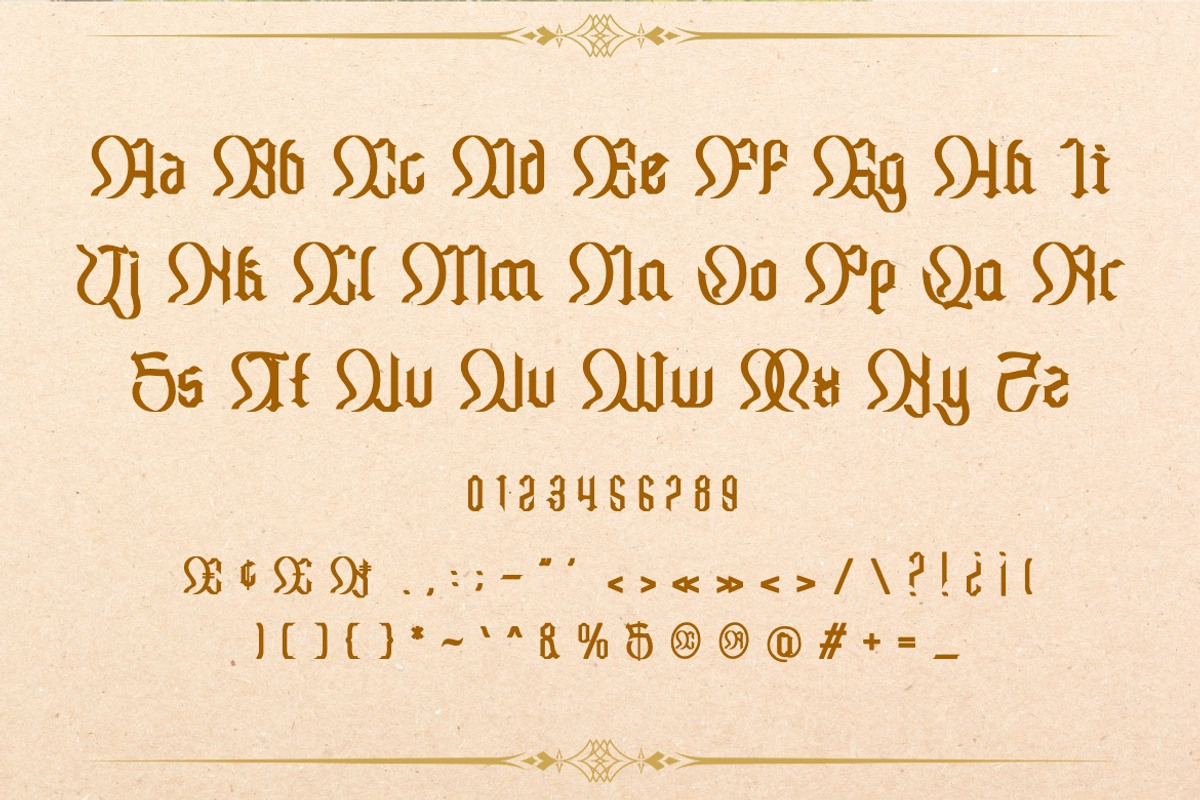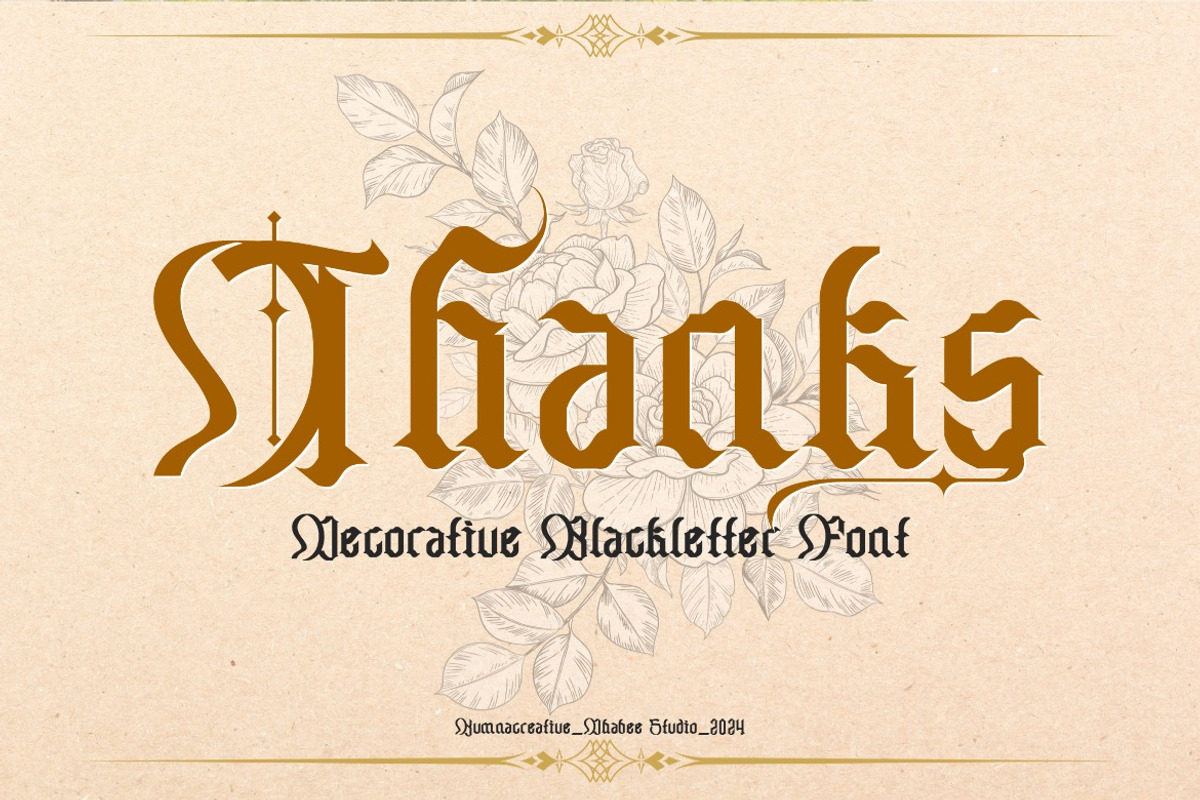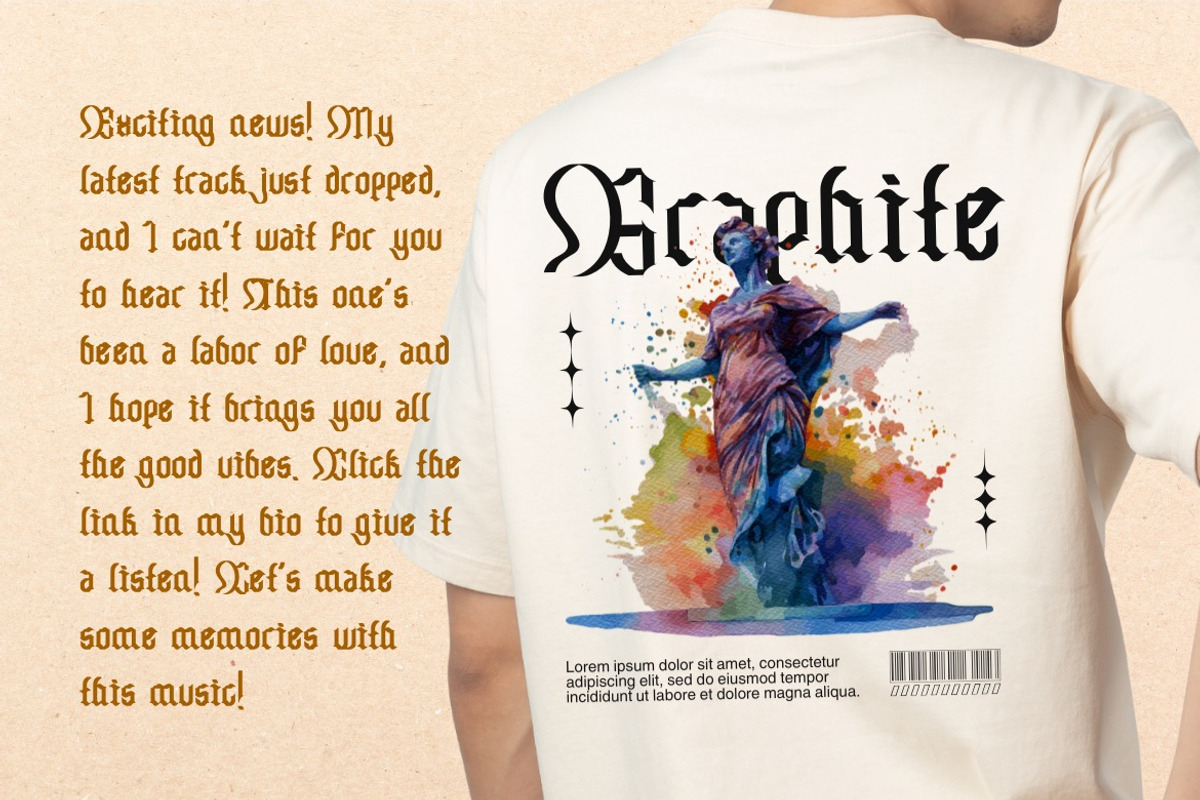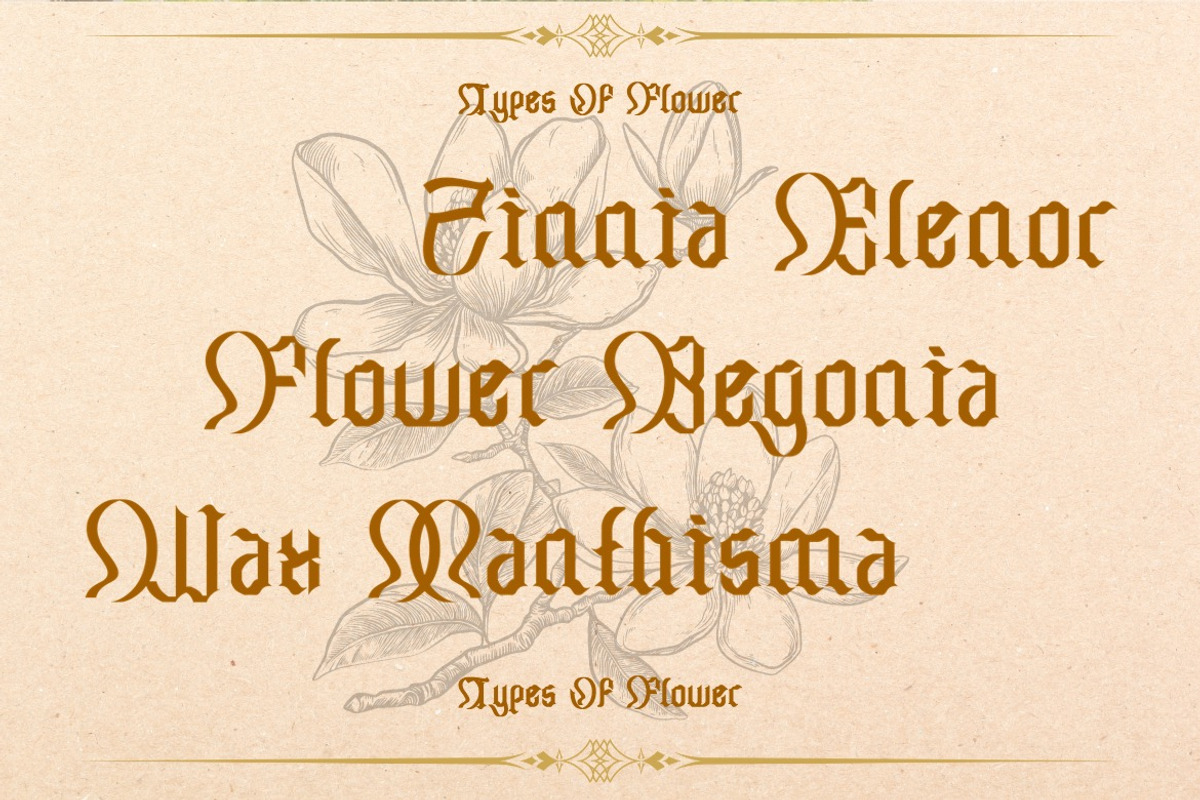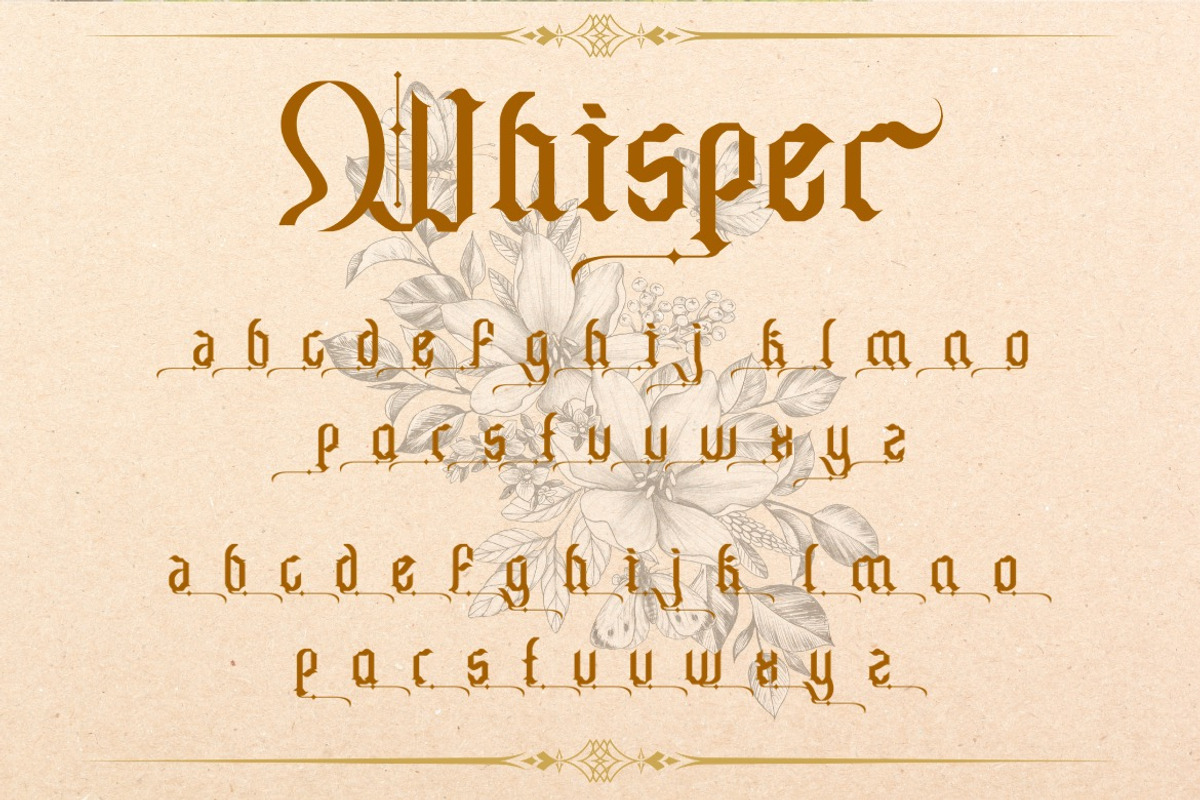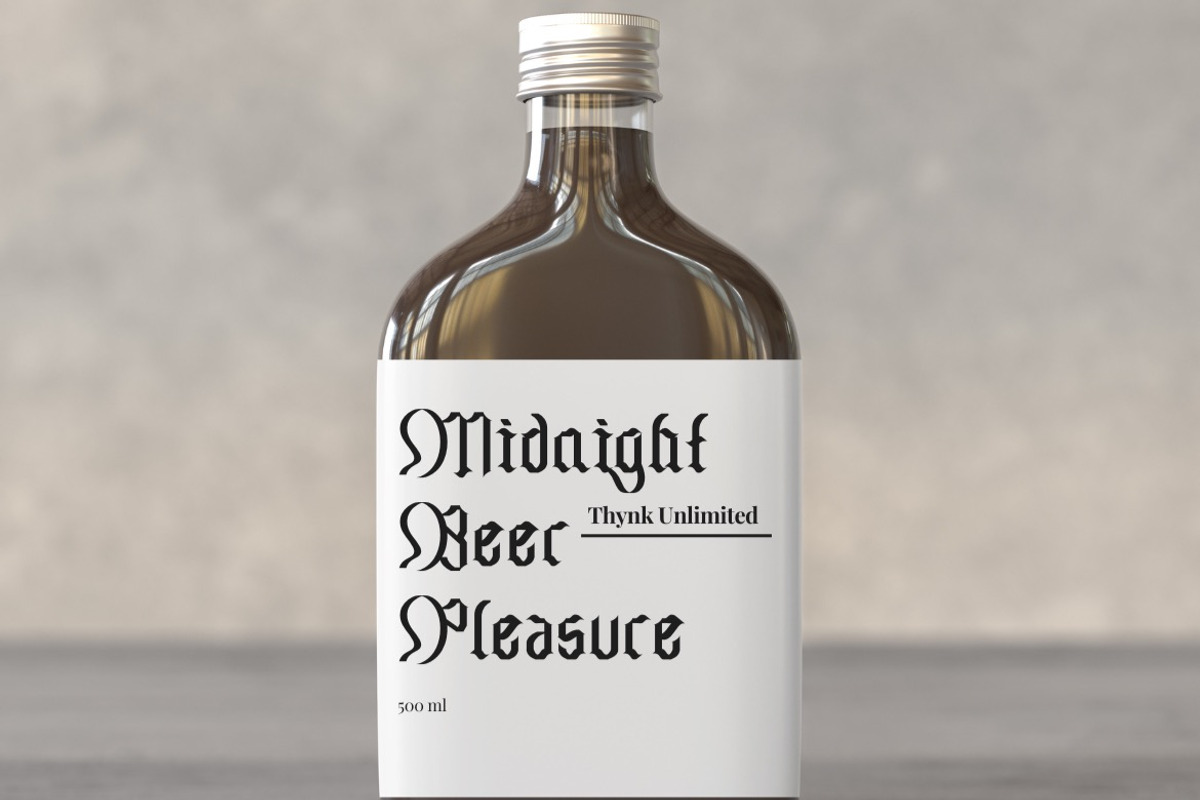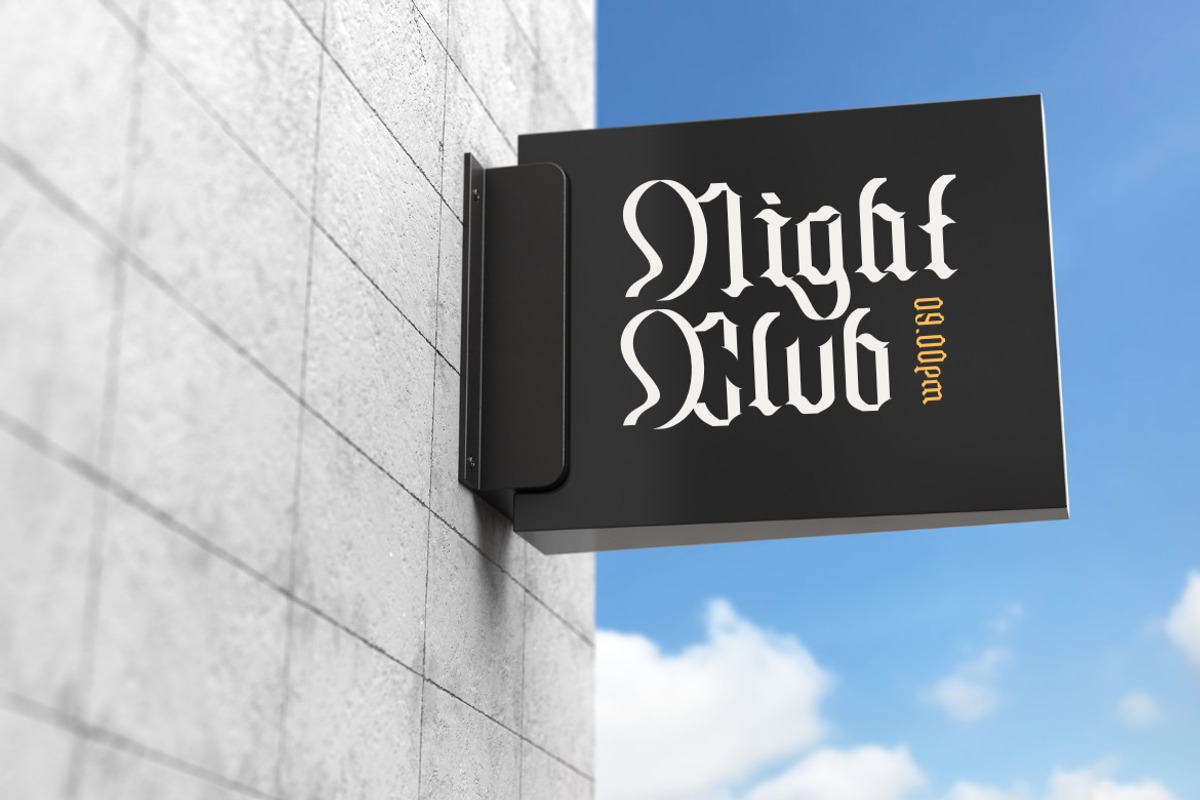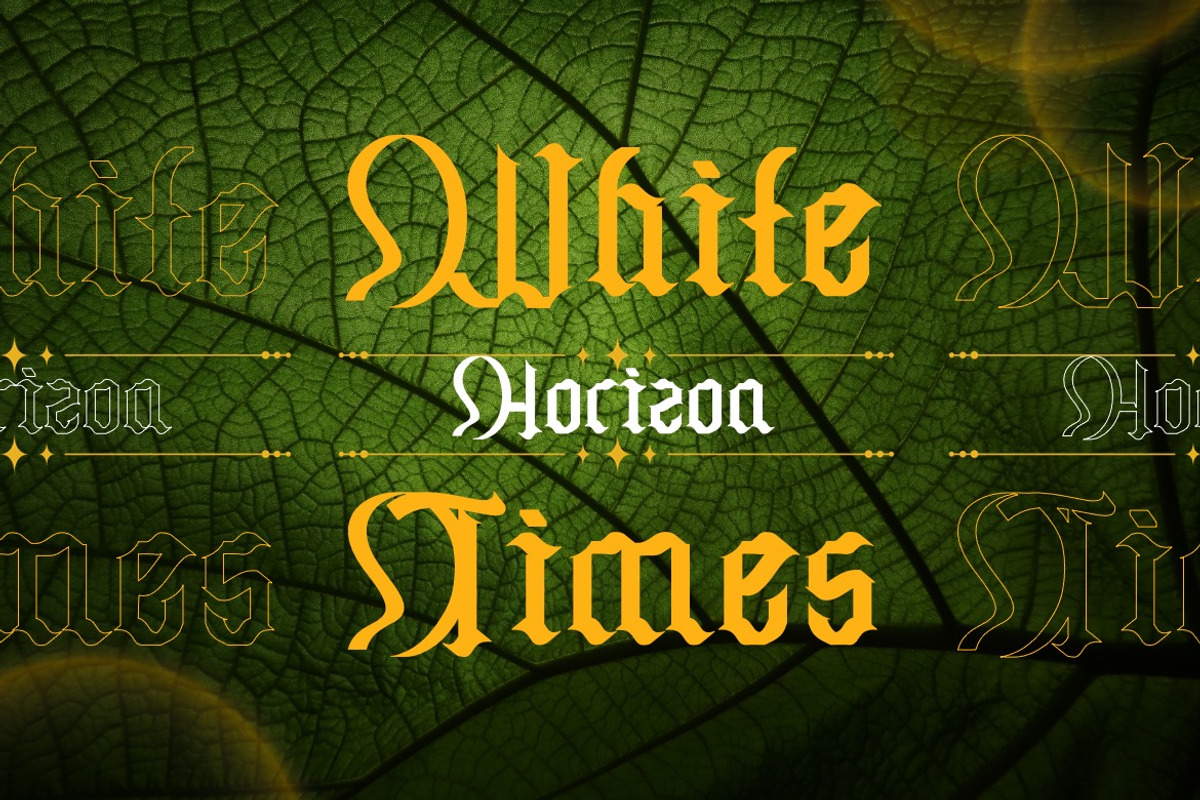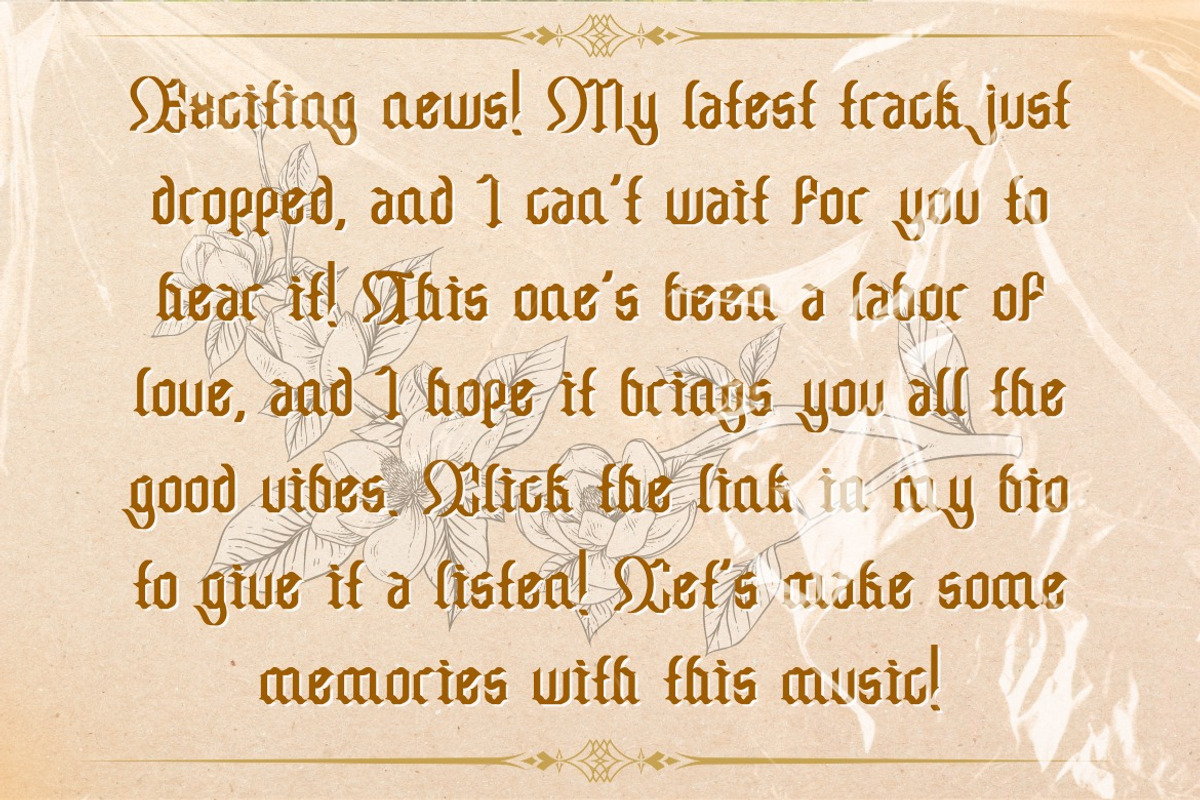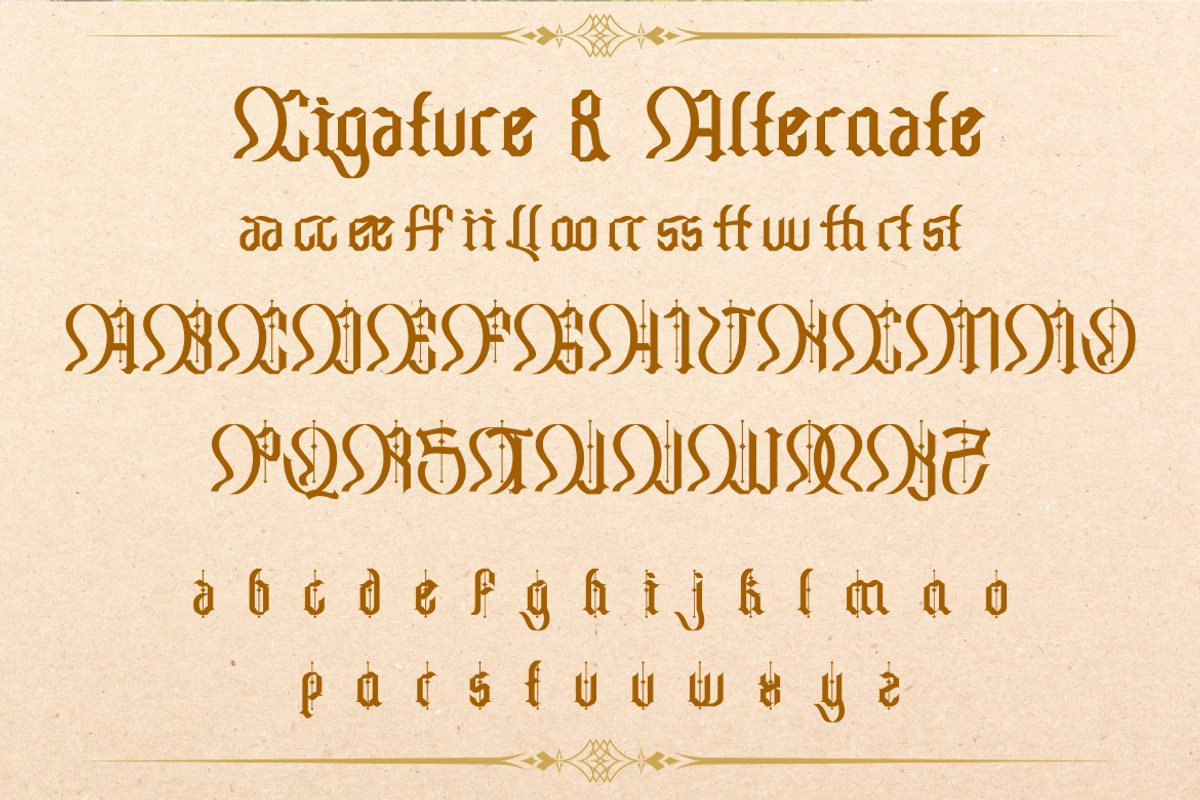
Chameton - Decorative Blackletter
Introducing Chameton - Decorative Blackletter Font
Chameton - Decorative Blackletter Font is a bold blackletter fraktur display font that merges traditional Gothic aesthetics with modern impact. Its intricate letterforms feature sharp angles, dramatic strokes, and striking contrasts, embodying strength, authority, and historical charm. The bold weight enhances its commanding presence, making it ideal for designs that demand attention and sophistication.
• Alternate & Ligature